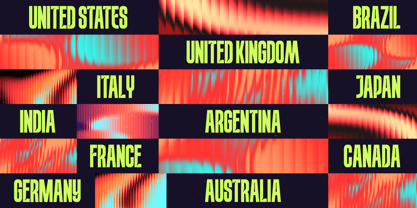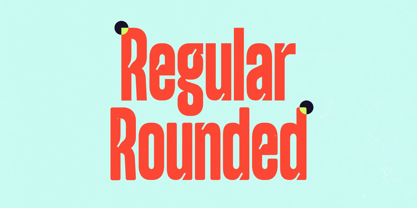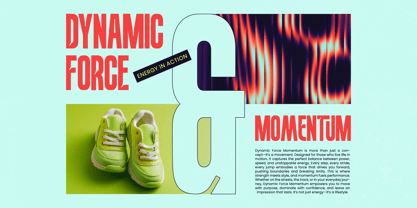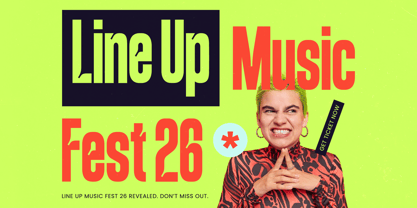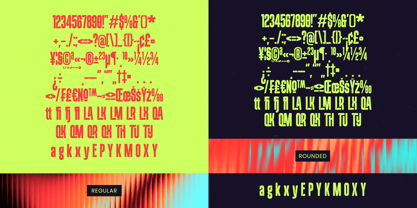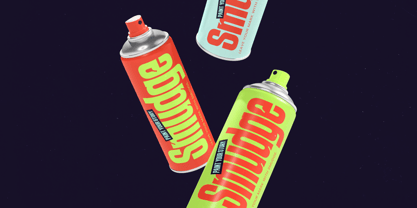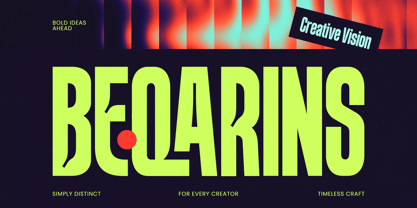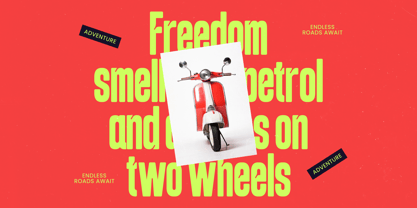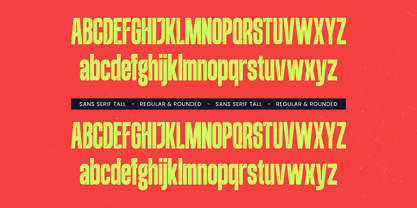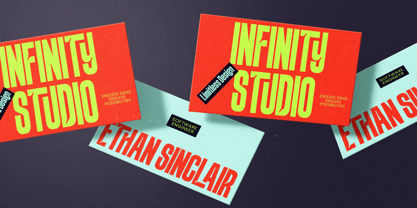
Beqarins Rounded
The Beqarins Rounded Font Family was designed by Heru Utama Putra and published by Timelesstype Studio. Beqarins Rounded contains 2 styles and family package options. More about this family
Beqarins – Sans Serif Tall is a masterclass in modern display typography, featuring an ultra-condensed silhouette that exudes confidence and authority. Designed for creators who refuse to blend into the background, this typeface balances geometric precision with a contemporary edge, making it an essential tool for any high-impact project.
Experience unparalleled creative flexibility with a robust set of OpenType features that allow for deep customization. With its extensive multilingual support, Beqarins – Sans Serif Tall adapts seamlessly across global markets, making it incredibly versatile for international projects. The inclusion of 17 unique ligatures and 13 stylish alternates ensures that every headline remains distinct, providing a bespoke aesthetic that is both professional and visually captivating.